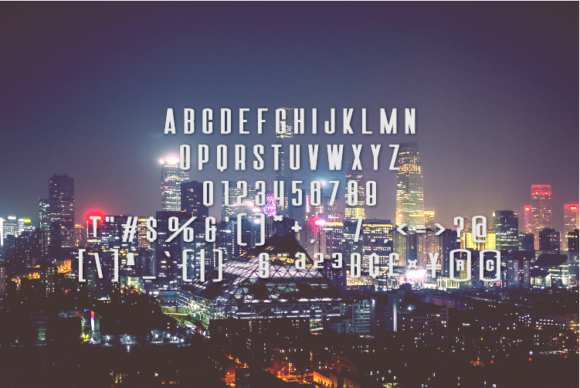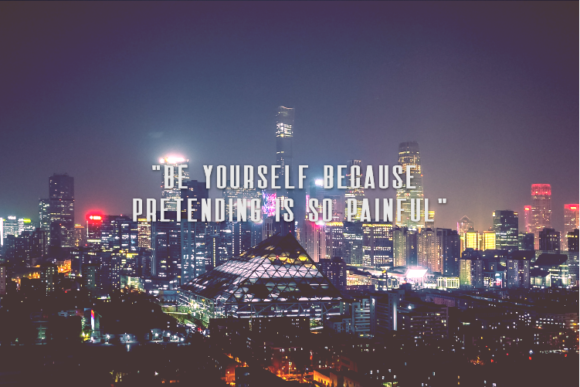
Introduction to Penplanet Font
Penplanet is a modern and clean sans serif font that is versatile and looks great in just about any context.
With smooth and clean lines, and just a touch of contrast, Penplanet works beautifully for logos, branding, web headings and much more .
Key Features of Penplanet Font
Why Choose Penplanet Font?